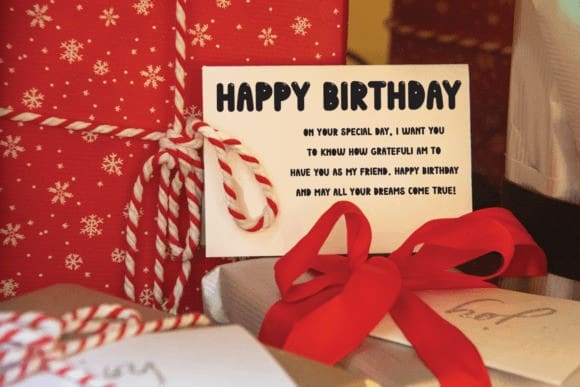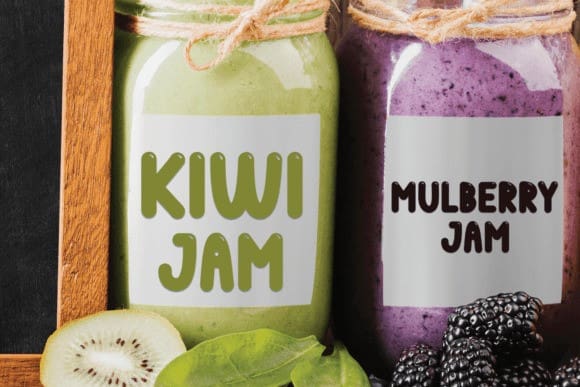
Bravo Playful Font
Bravo Playful Font is a bold, and thick font that will help you create fun and playful designs and will look good on a variety of branding and packaging projects. This chubby font features the perfect combination of fun and creativity to instantly grab anyone’s attention.